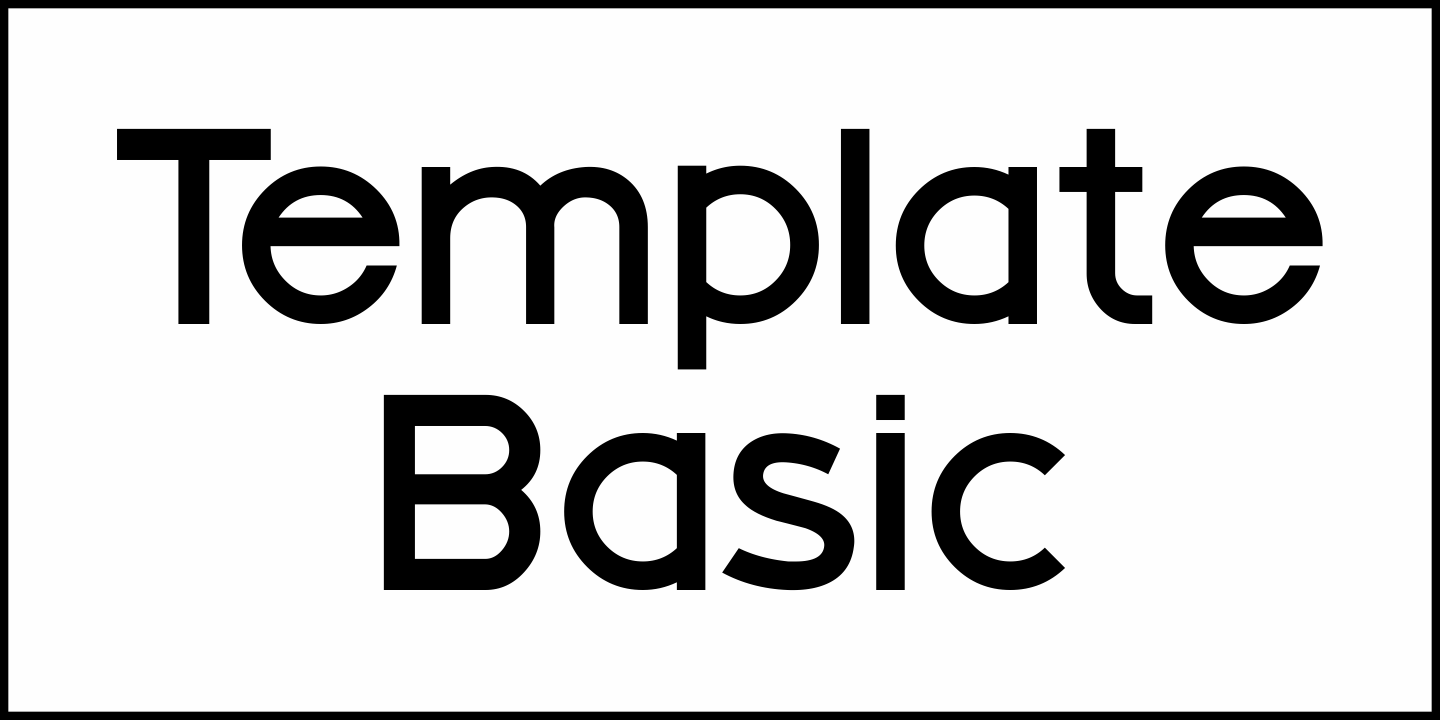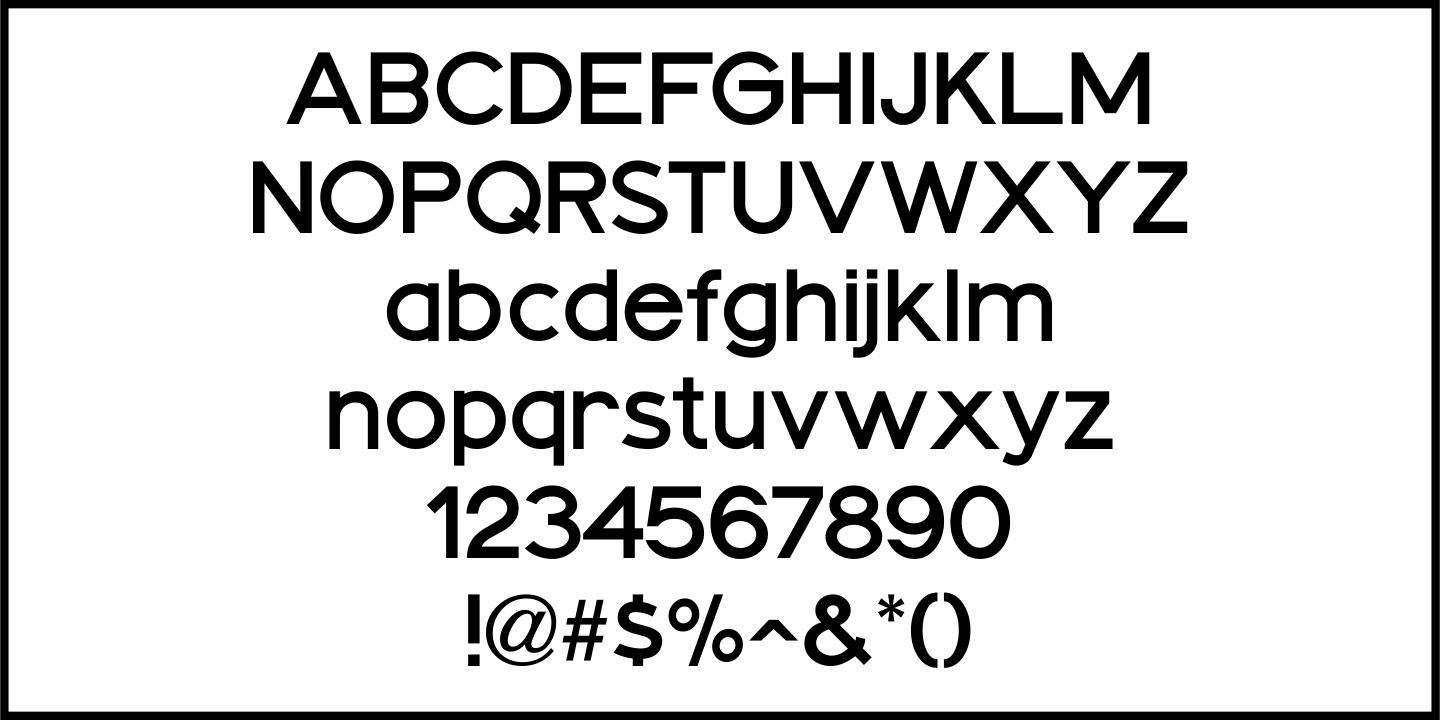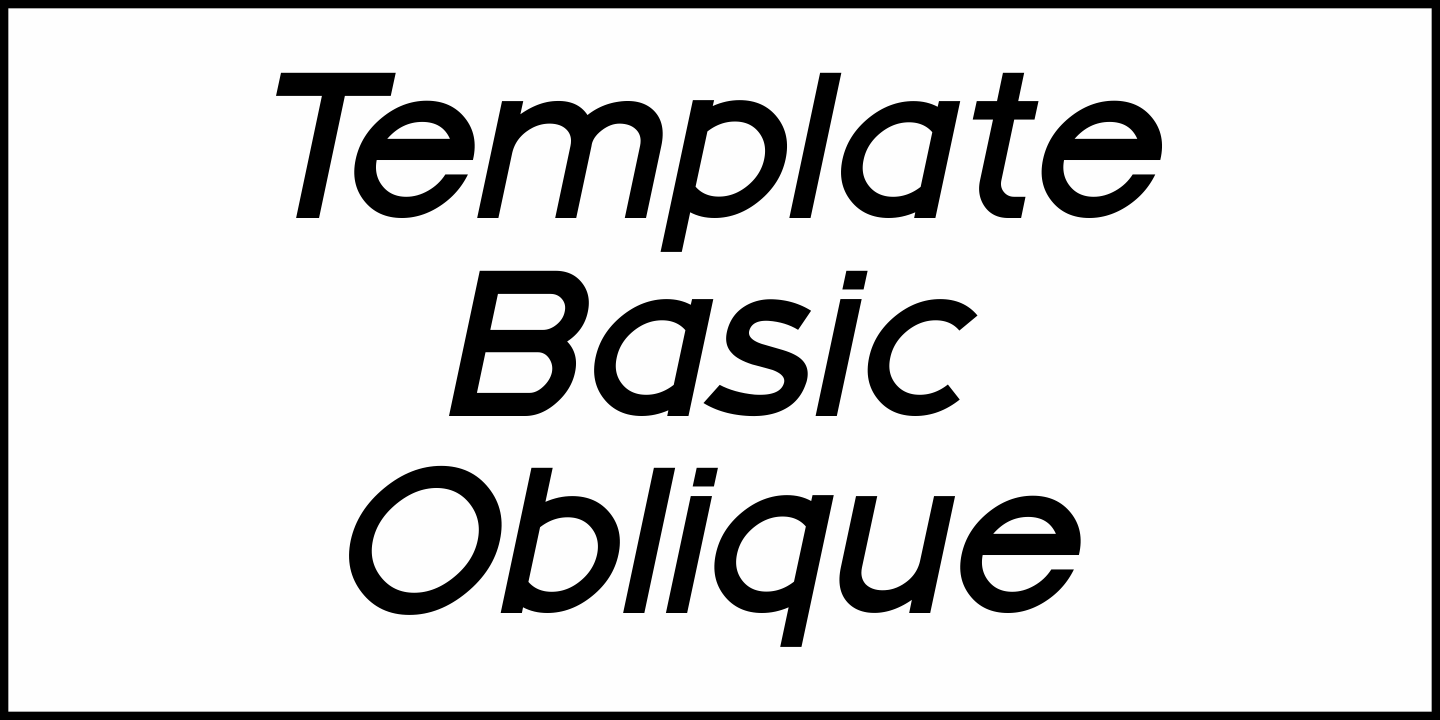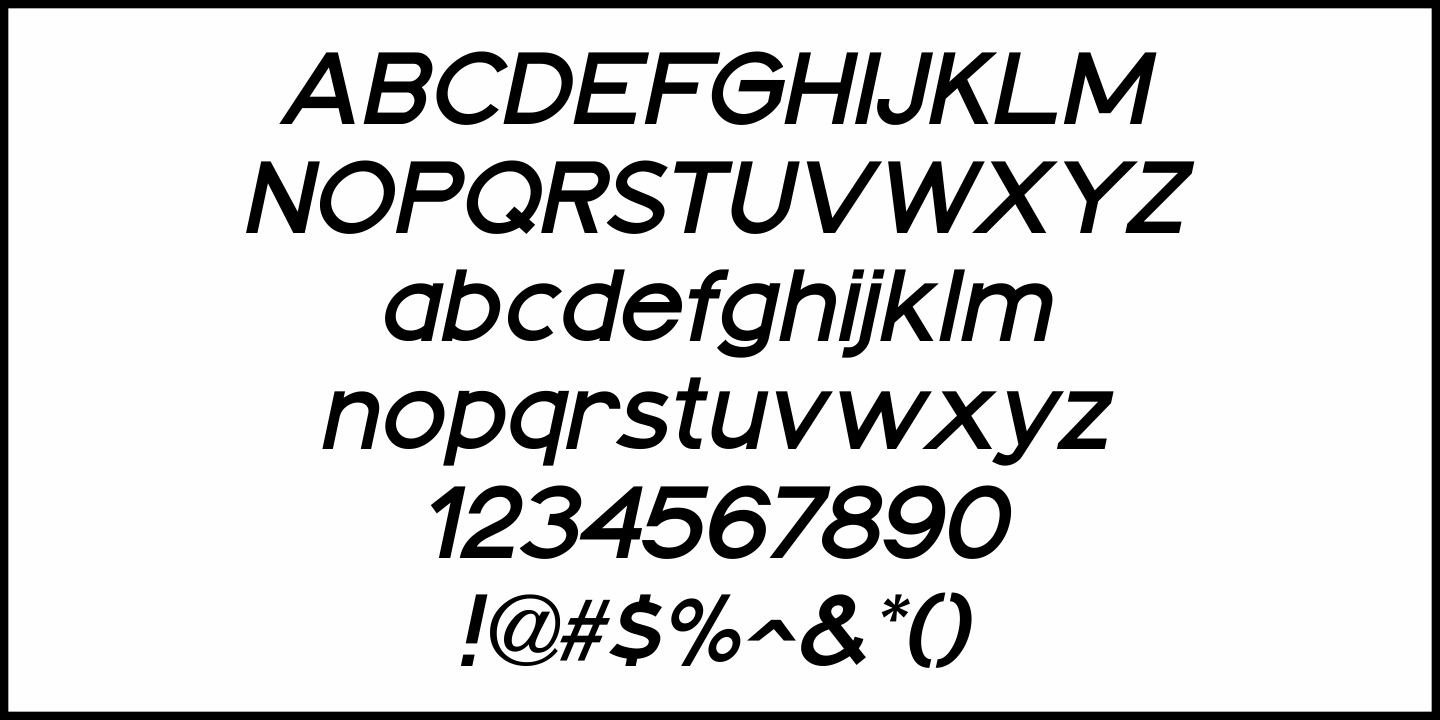
Template Basic
Template Basic JNL was inspired by a simple sans serif lettering template used in the days of ink and technical pen renderings, and is available in both regular and oblique versions.